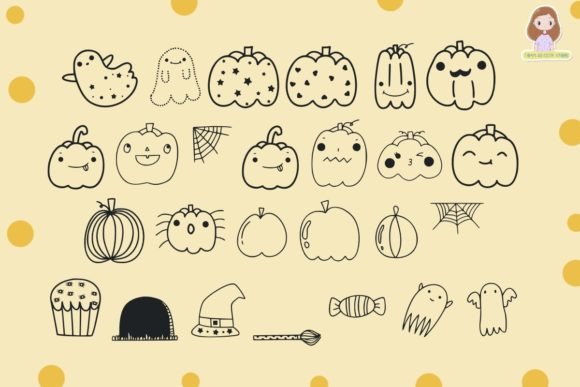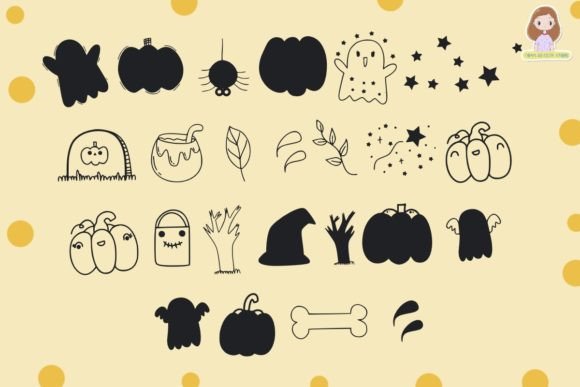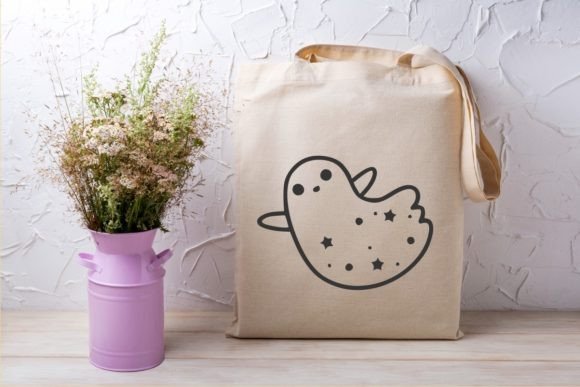
Happy Halloween Font: Add a Spooky Touch to Your Creations
Are you looking for a font that will add a spooky touch to your Halloween-related projects? Look no further than the Happy Halloween Font! This fun and spooky dingbats font is perfect for designers and crafters who want to create gorgeous and festive designs. In this article, we’ll take a closer look at the Happy Halloween Font and how you can use it to make your creations stand out.
What is Happy Halloween Font?
Happy Halloween Font is a unique dingbats font that features a range of spooky and fun symbols, including ghosts, pumpkins, cats, cauldrons, and spiderwebs. This font is perfect for anyone who wants to add a touch of Halloween spirit to their designs, from party invitations to social media graphics. With its playful and festive vibe, Happy Halloween Font is sure to delight both kids and adults alike.
Key Features of Happy Halloween Font
- Fun and Spooky Symbols: Happy Halloween Font features a range of fun and spooky symbols that are perfect for Halloween-related projects.
- Dingbats Font: This font is a dingbats font, which means it’s made up of symbols and icons rather than letters and numbers.
- Perfect for Designers and Crafters: This font is perfect for designers and crafters who want to add a touch of Halloween spirit to their creations.
How to Use Happy Halloween Font
- Party Invitations: Use Happy Halloween Font to create spooky and fun party invitations that will set the tone for your Halloween party.
- Social Media Graphics: Add a touch of Halloween spirit to your social media graphics with Happy Halloween Font.
- Craft Projects: Use Happy Halloween Font to create festive and fun craft projects, such as Halloween cards and decorations.
- Web Graphics: Add a touch of Halloween spirit to your website with Happy Halloween Font.
Benefits of Using Happy Halloween Font
There are many benefits to using Happy Halloween Font, including:
- Unique and Festive Designs: Happy Halloween Font allows you to create unique and festive designs that will stand out from the crowd.
- Perfect for Halloween-Related Projects: Happy Halloween Font is perfect for Halloween-related projects, from party invitations to social media graphics.
- Fun and Spooky Symbols: This font features a range of fun and spooky symbols that are sure to delight both kids and adults alike.
Tips and Tricks for Using Happy Halloween Font
Here are a few tips and tricks for using Happy Halloween Font:
- Experiment with Different Sizes and Colors: Experiment with different sizes and colors to find the perfect look for your design.
- Combine with Other Fonts: Combine Happy Halloween Font with other fonts to create a unique and interesting look.
- Use in Combination with Other Design Elements: Use Happy Halloween Font in combination with other design elements, such as images and graphics, to create a festive and fun design.
Happy Halloween Font is a fun and spooky dingbats font that’s perfect for designers and crafters who want to add a touch of Halloween spirit to their creations. With its range of fun and spooky symbols, this font is sure to delight both kids and adults alike. Whether you’re creating party invitations, social media graphics, or craft projects, Happy Halloween Font is the perfect choice. So why wait? Download Happy Halloween Font today and start creating your own spooky and fun designs!